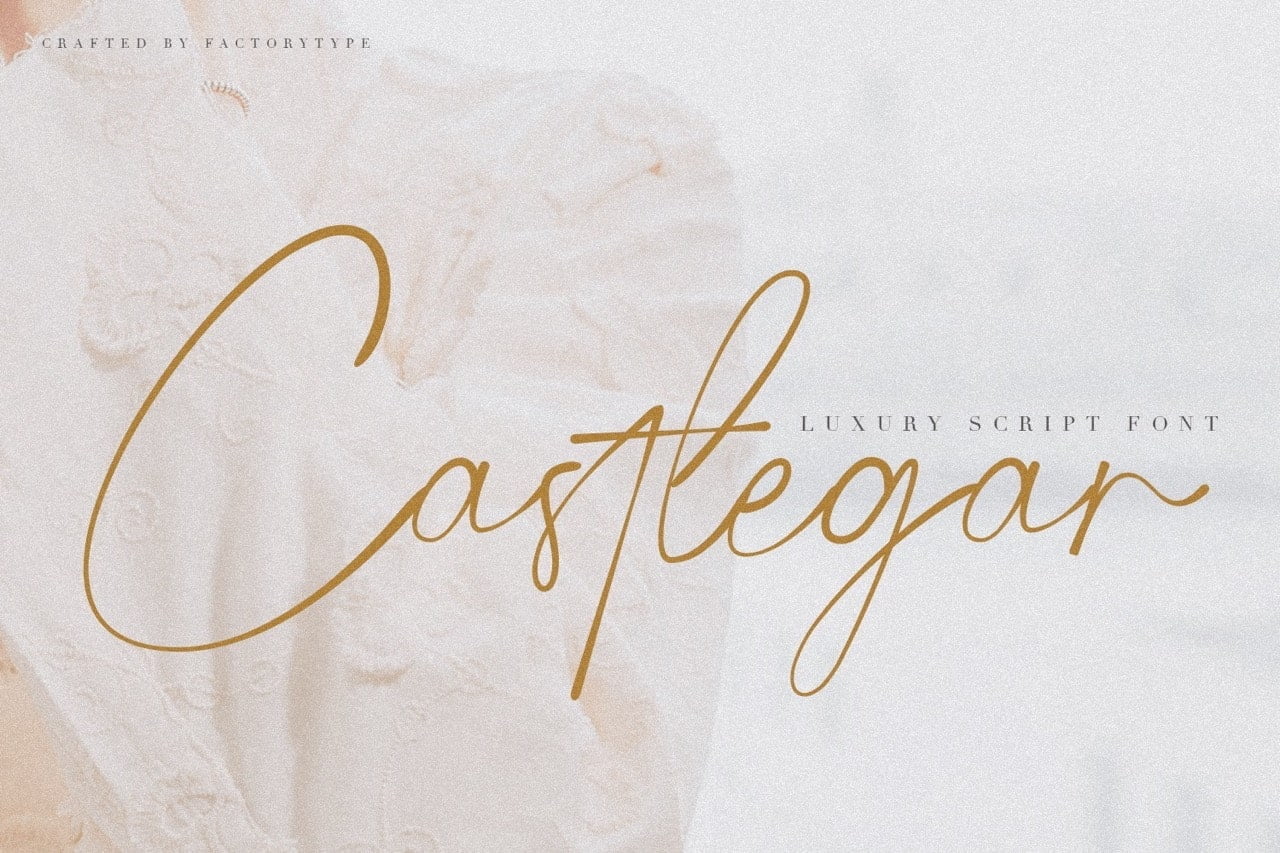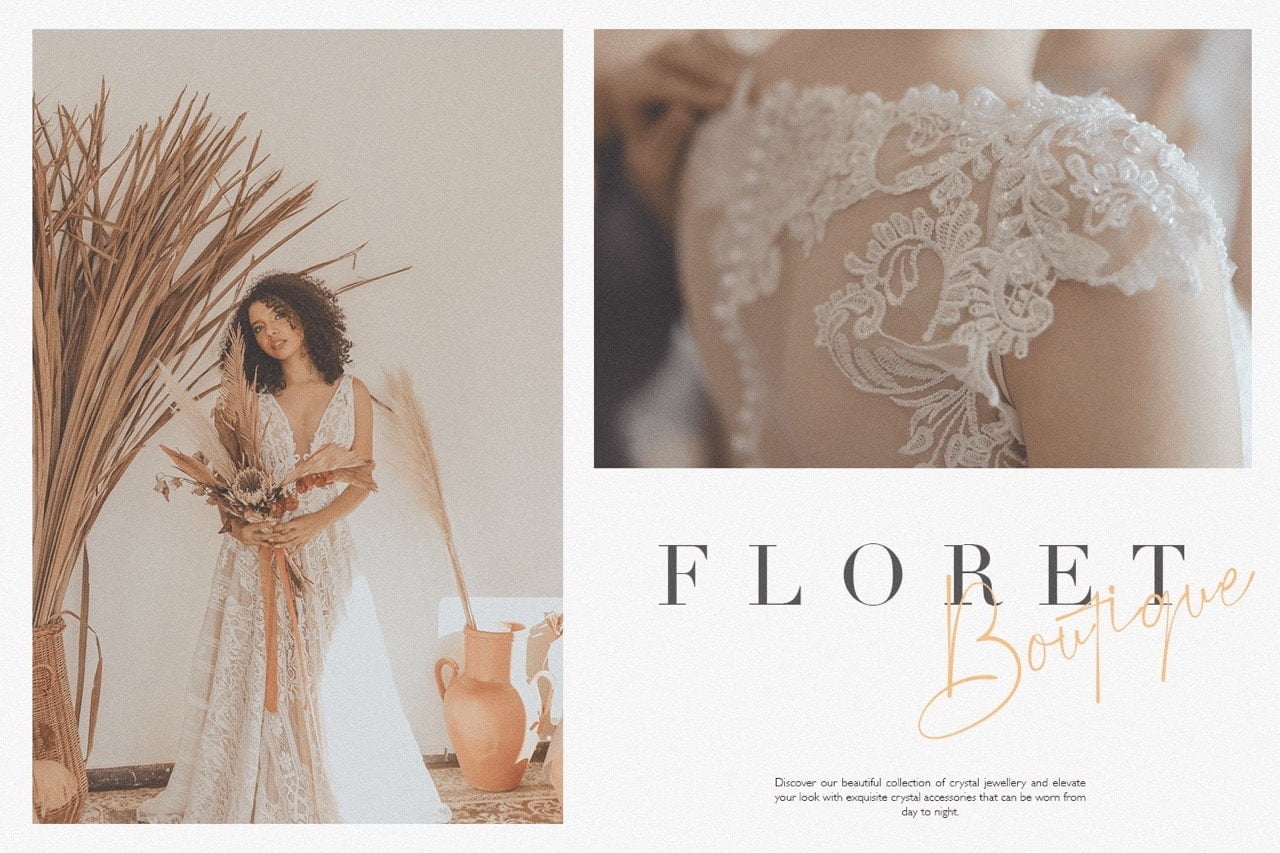
Made with love, Castlegar is a charming handwritten font with a personal touch. Whether you’re looking for the perfect personalized font for a project, or just want to add a cheerful handwritten aesthetic to your designs, Castlegar has the best features of both formal and casual scripts.
- Stylistic Ligatures and Alternate Glyphs